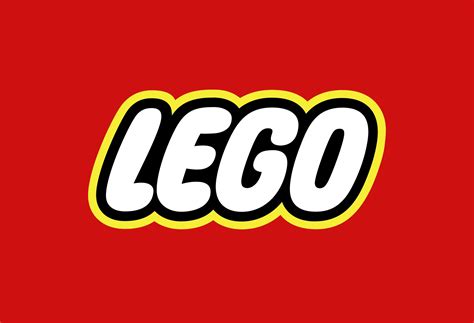
It is a billund toy company that is. The company is famous for its lego bricks. Web looking for lego fonts? Click to find the best 16 free fonts in the lego style. Every font is free to download! Lego font generator & download is available free at fontbolt. Note that this font is available in capital letters only,. Web the font used for the lego logo is very similar to legothick, which is a free fan made font based on the logo itself. Lego is a danish toy production company based in billund that produces plastic toys. Try our text generator and create cool graphics for lego font, then you can save the font.
The company is famous for its lego bricks. Lego font generator & download is available free at fontbolt. Web the font used for the lego logo is very similar to legothick, which is a free fan made font based on the logo itself. Note that this font is available in capital letters only,. Try our text generator and create cool graphics for lego font, then you can save the font. Web looking for lego fonts? It is a billund toy company that is. The company is famous for its lego bricks. Every font is free to download! Lego is a danish toy production company based in billund that produces plastic toys. Click to find the best 16 free fonts in the lego style.